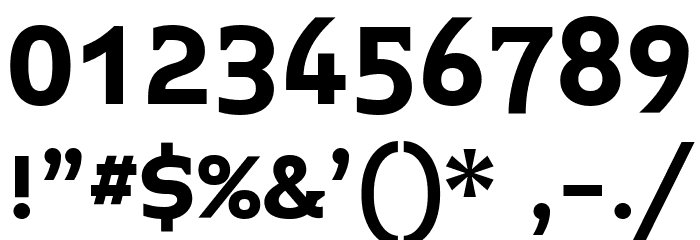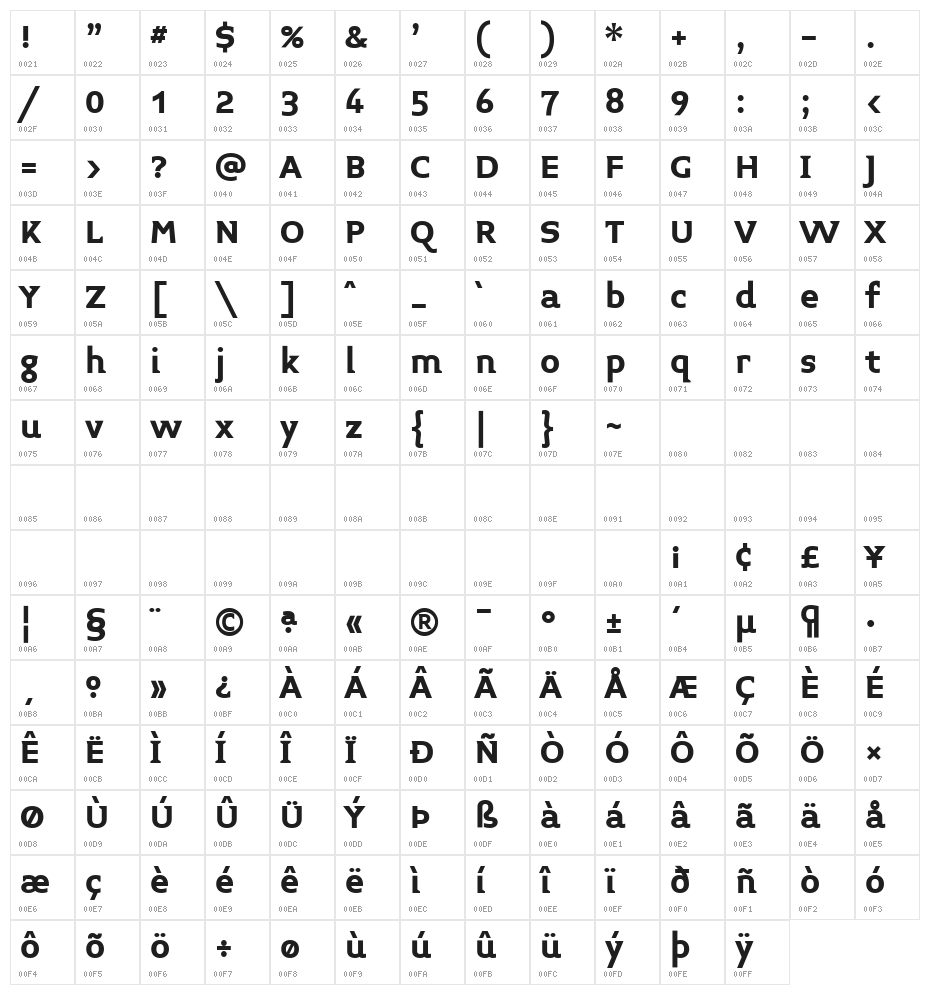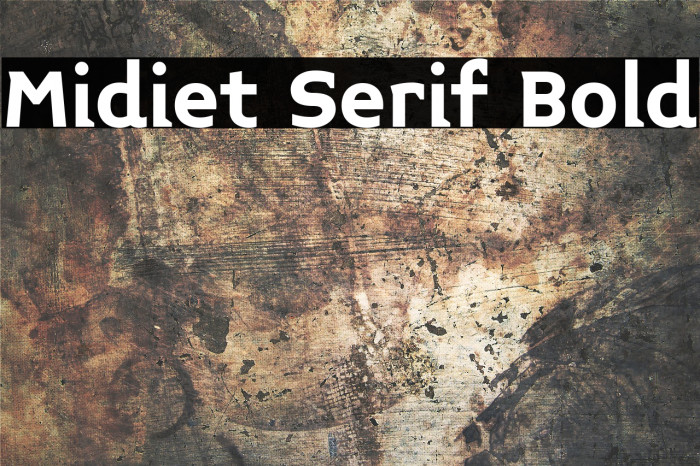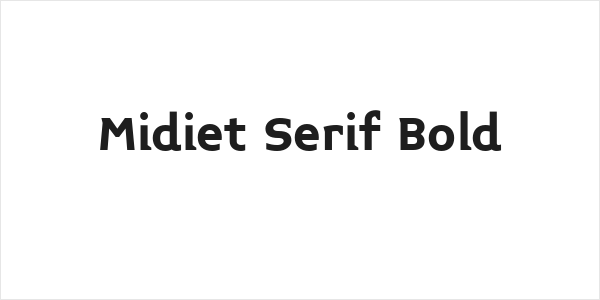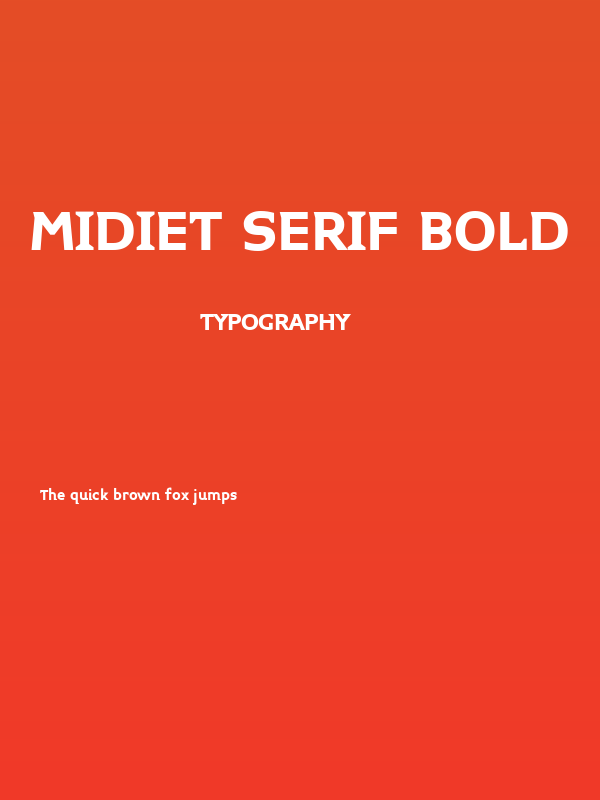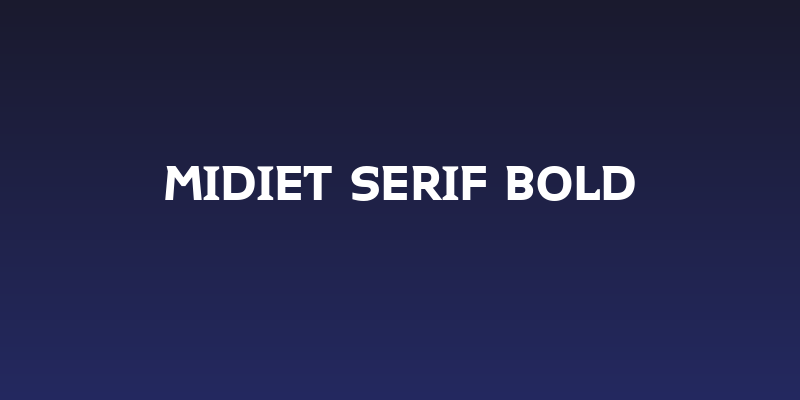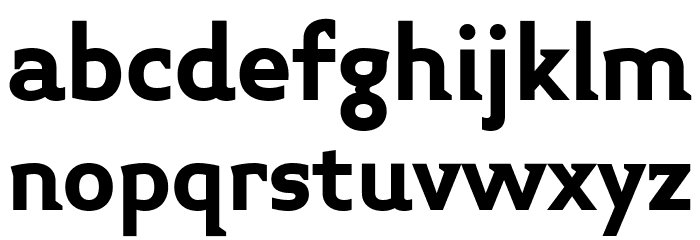
Midiet Serif Bold Font
Midiet Serif Bold Description
This font features a bold and robust serif style, characterized by its strong and pronounced serifs that add a touch of classic elegance. The uppercase letters are well-defined with a consistent stroke width, while the lowercase letters maintain a harmonious balance with slightly rounded edges. The numerals are clear and legible, making them suitable for various applications. Special characters are distinct and maintain the overall aesthetic of the font. This typeface exudes a sense of authority and tradition, making it ideal for projects that require a formal and professional appearance.
| Use Case | Headlines, Logos, Editorial Design |
| Proposed Projects | Ideal for book covers, editorial design, formal invitations, and branding projects that require a classic and authoritative look. |